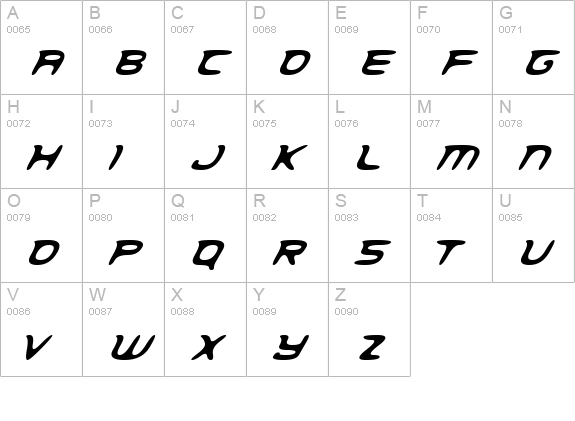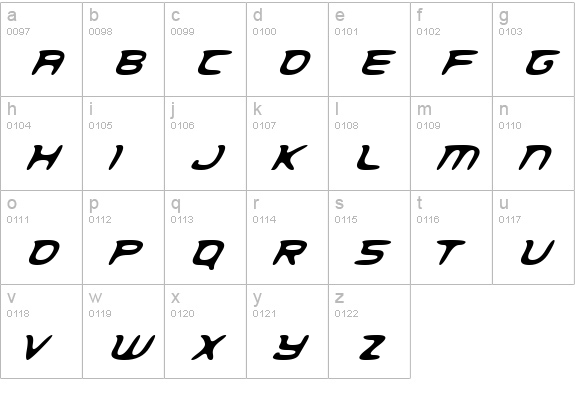
Spatial Anamoly font is a captivating and futuristic typeface that will transport your designs to another dimension. With its unique and geometrically-inspired letterforms, this font is perfect for adding a touch of modernity and intrigue to any project. The sleek lines and sharp angles of Spatial Anamoly create a sense of movement and dynamism, making it ideal for sci-fi, technology, or avant-garde themed designs.